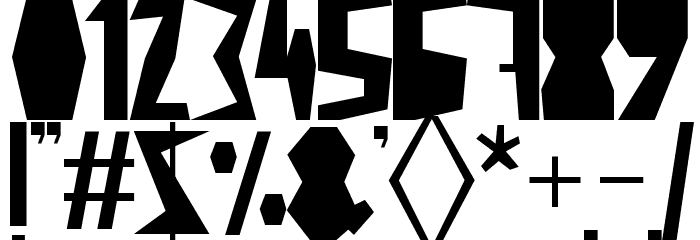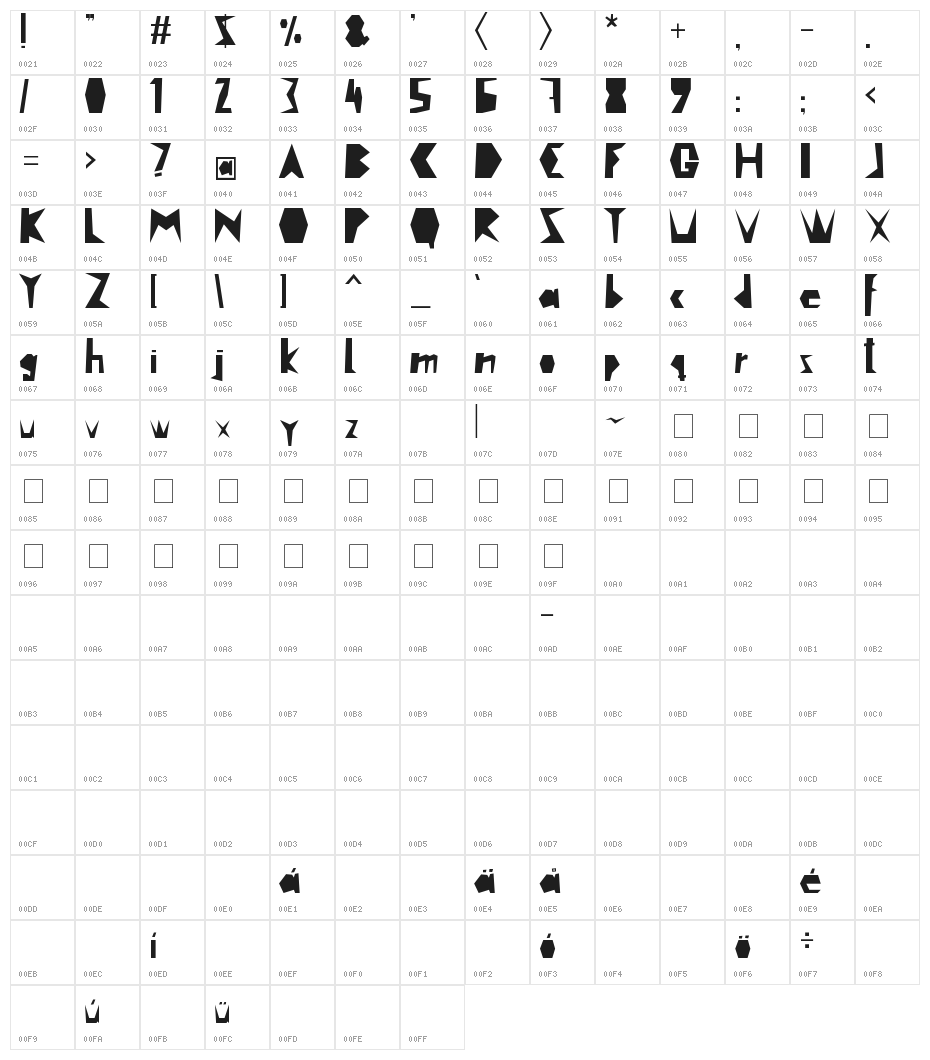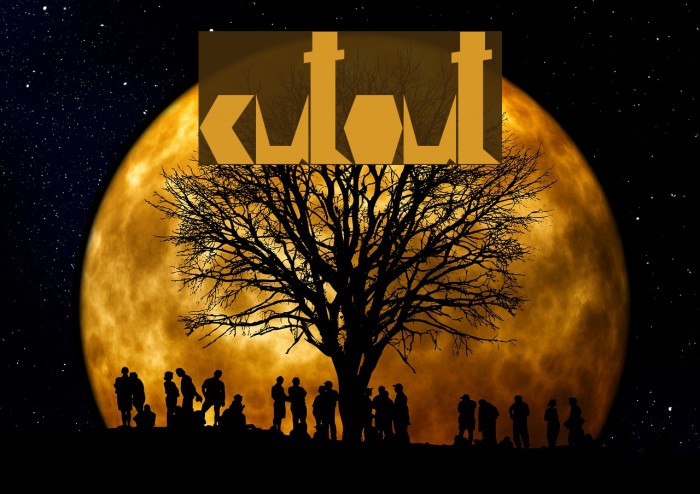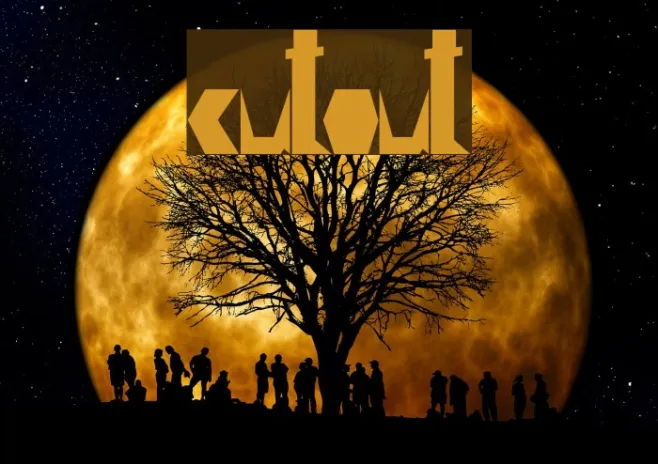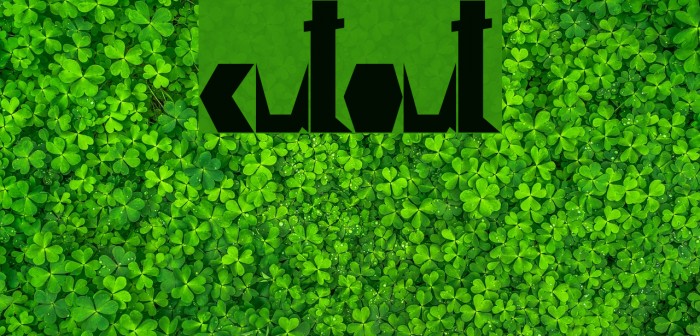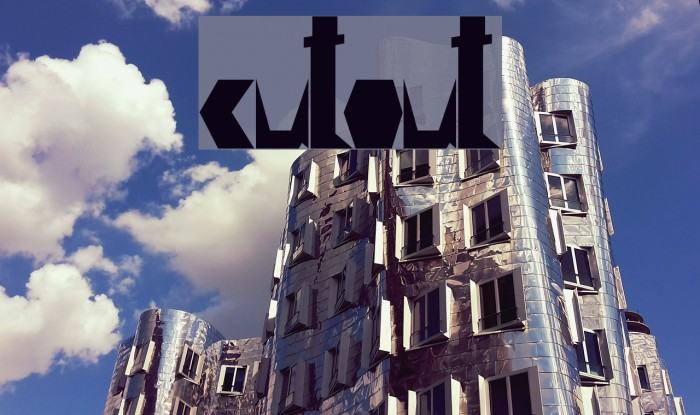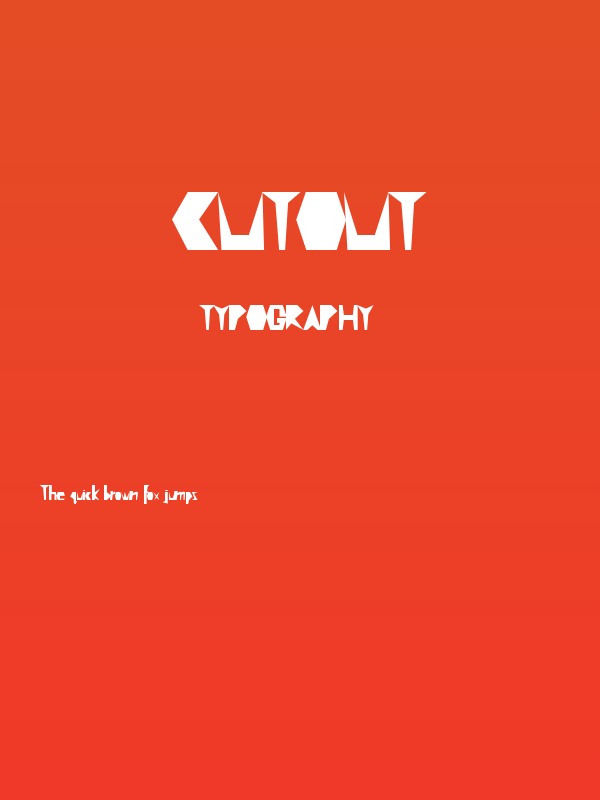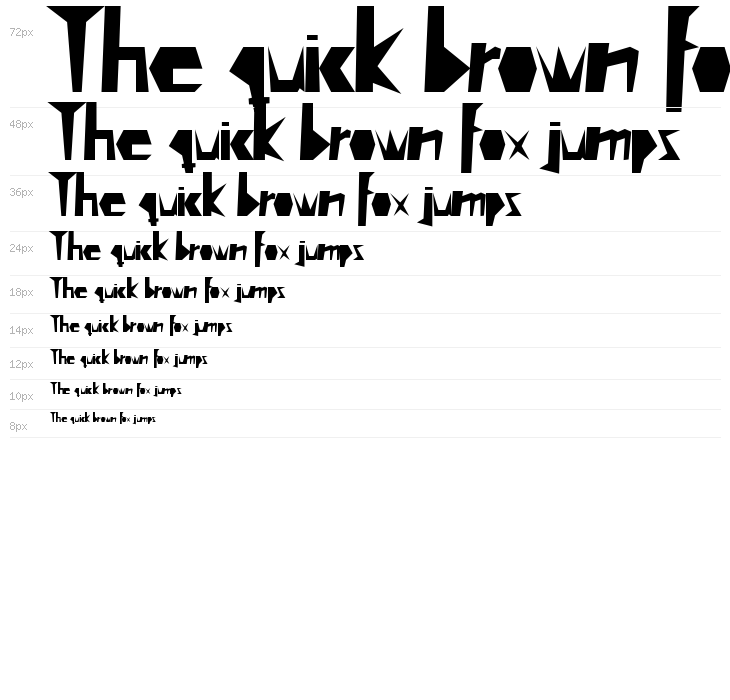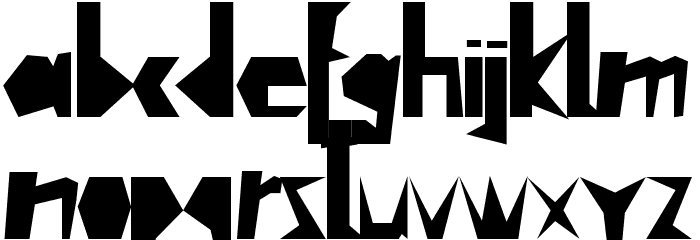
cutout Font
cutout Description
This font features a bold and geometric design, characterized by sharp angles and a distinct, edgy appearance. The uppercase and lowercase letters share a consistent angular style, creating a cohesive and striking visual impact. The numbers and special characters follow the same geometric theme, adding to the font's unique personality. Its boldness and unconventional shapes make it stand out, offering a modern and artistic flair. The font's design is highly stylized, making it suitable for projects that require a strong visual statement. Its angular forms and bold presence are perfect for capturing attention and conveying a sense of modernity and creativity.
| Proposed Projects | Ideal for posters, album covers, branding, and any project needing a bold, artistic touch. |